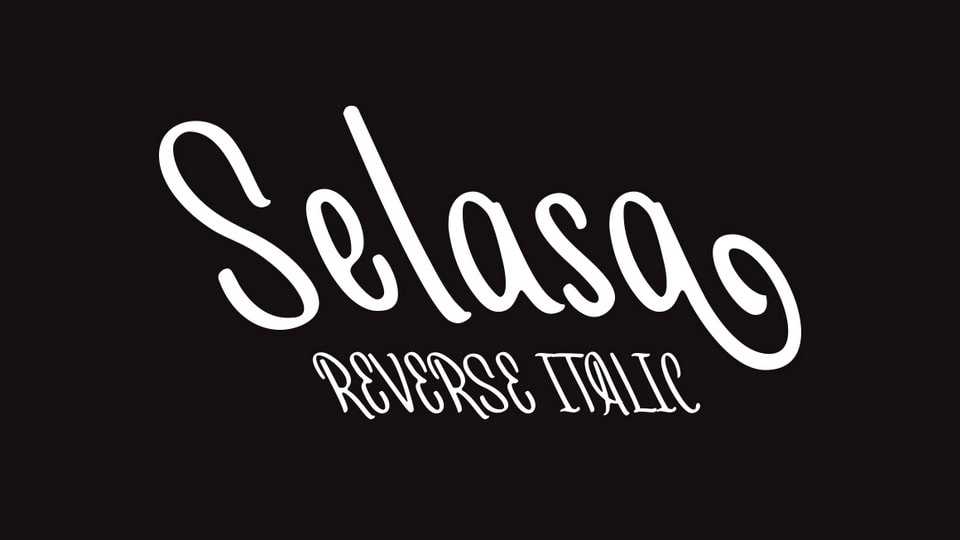
Download Selasa font, an unusual handwritten typeface where the angle is tilted to the left. At first it might look weird but you need to see something out of the ordinary occasionally.
Designer: Locomotype